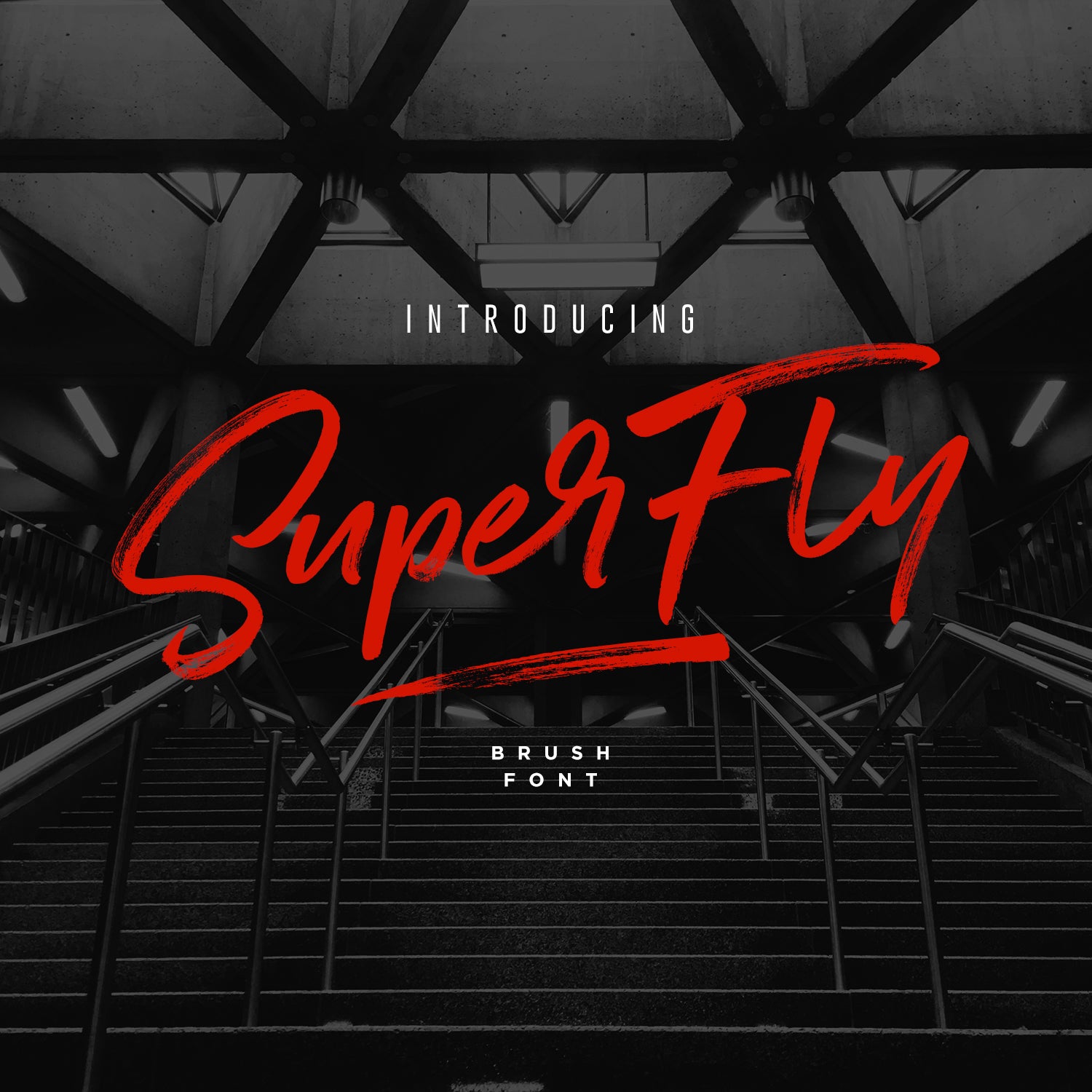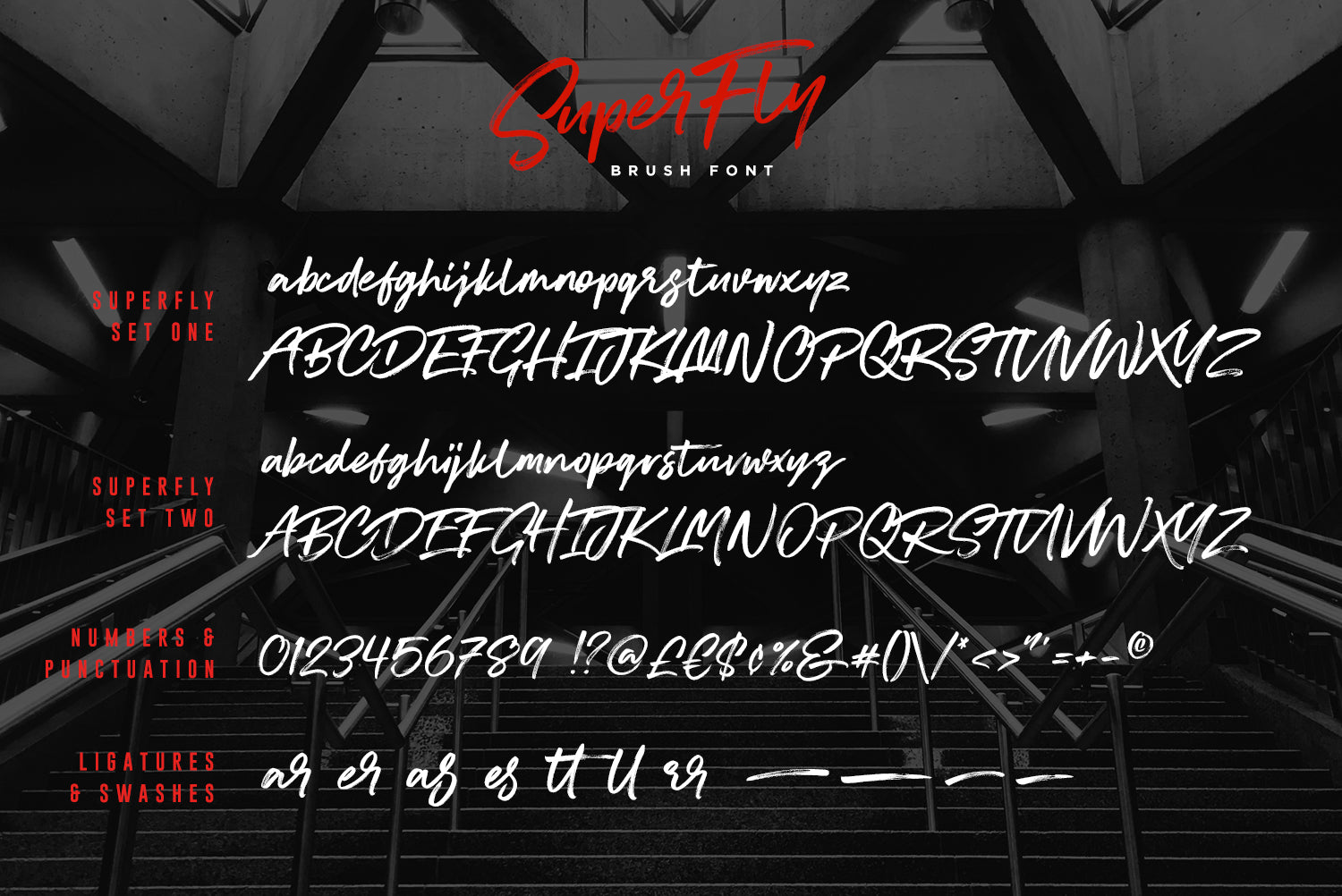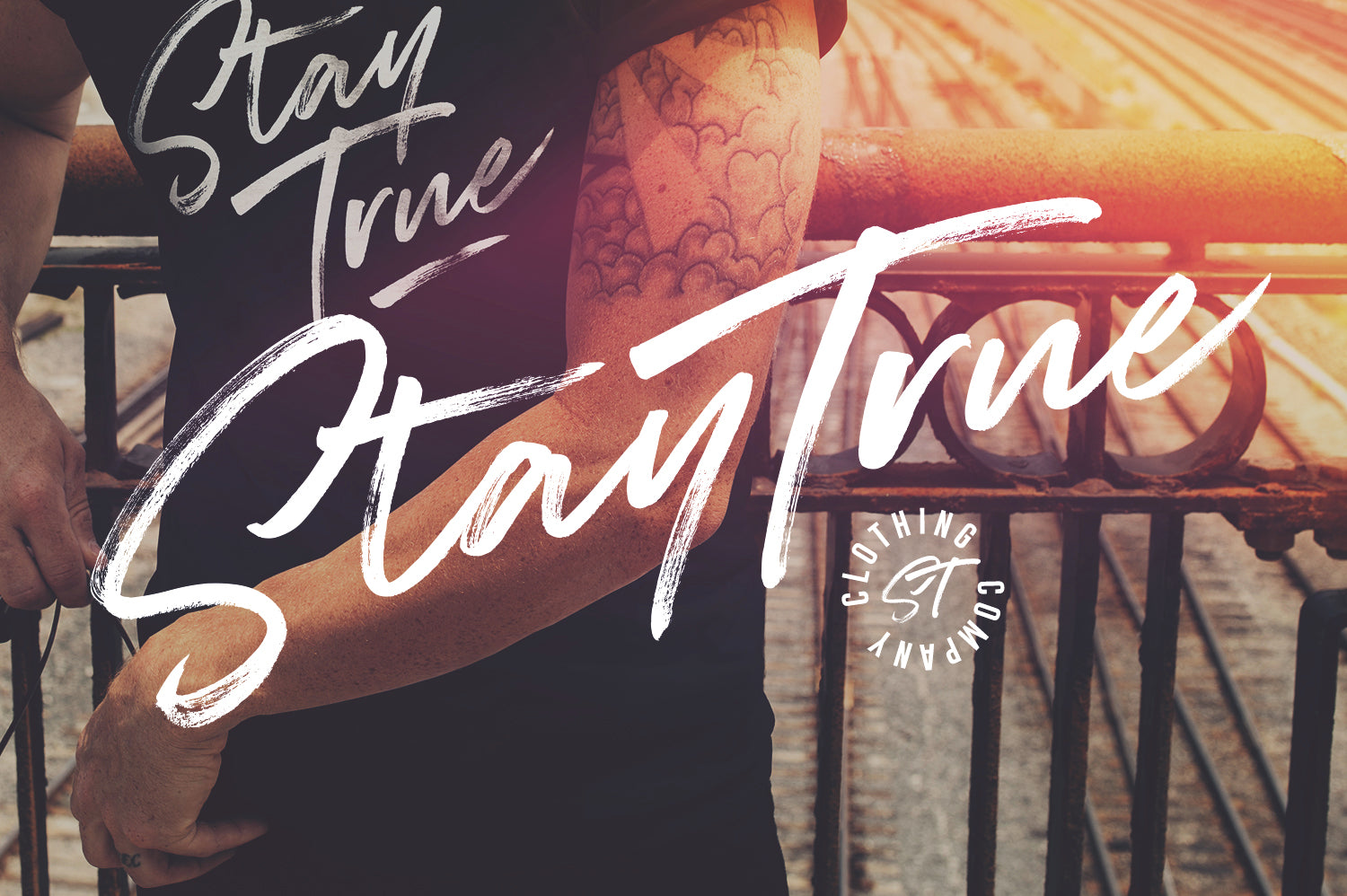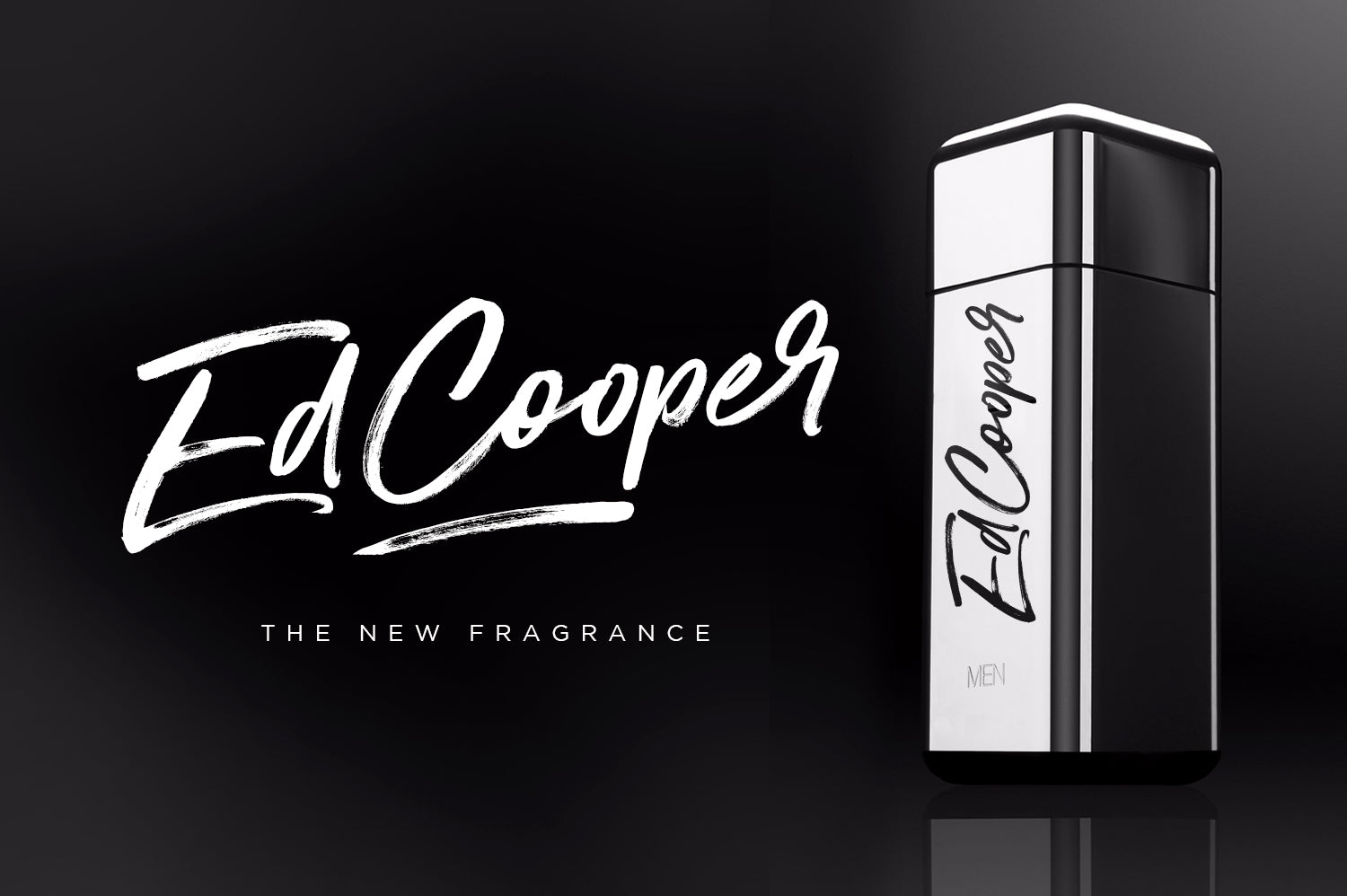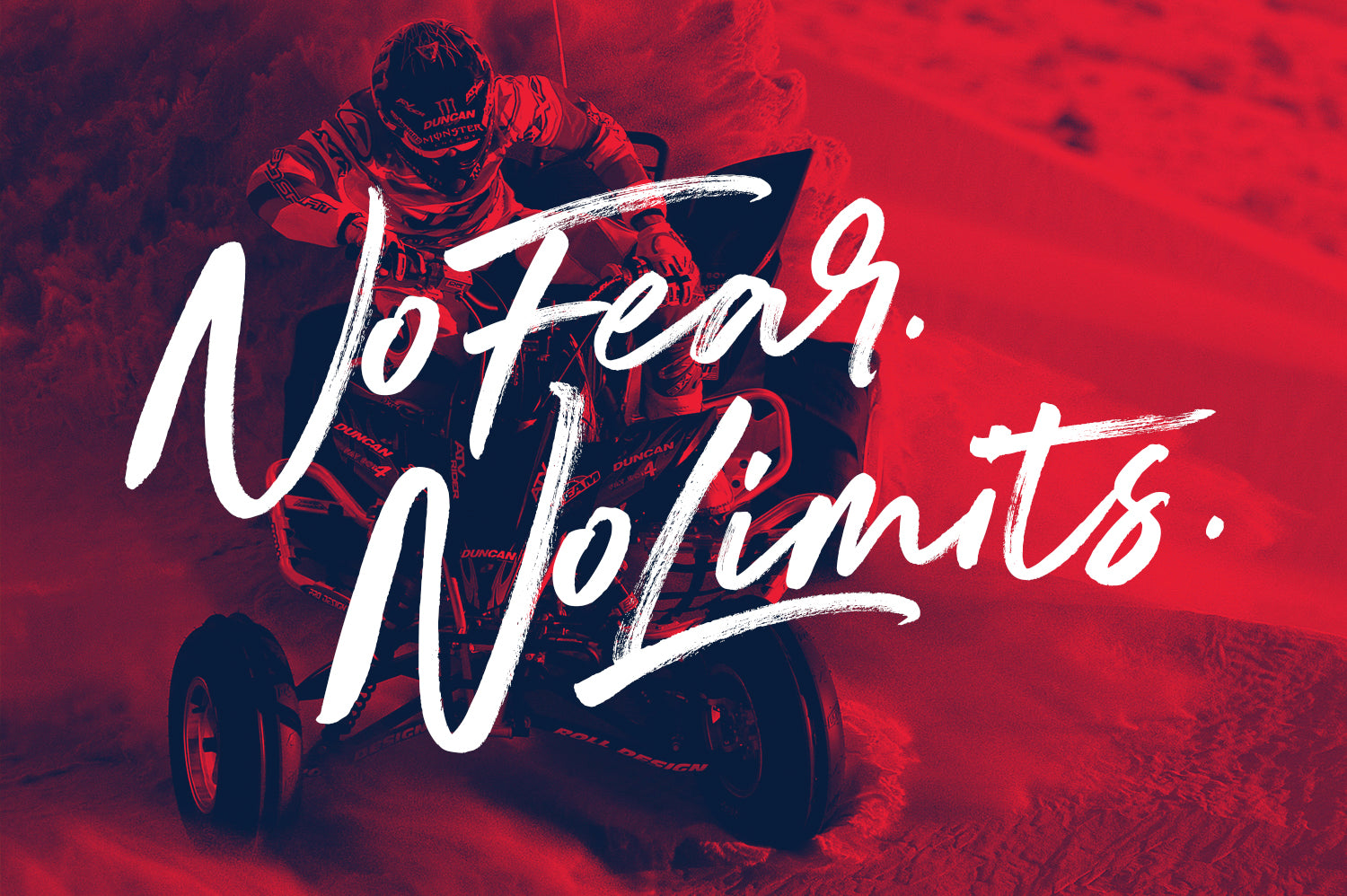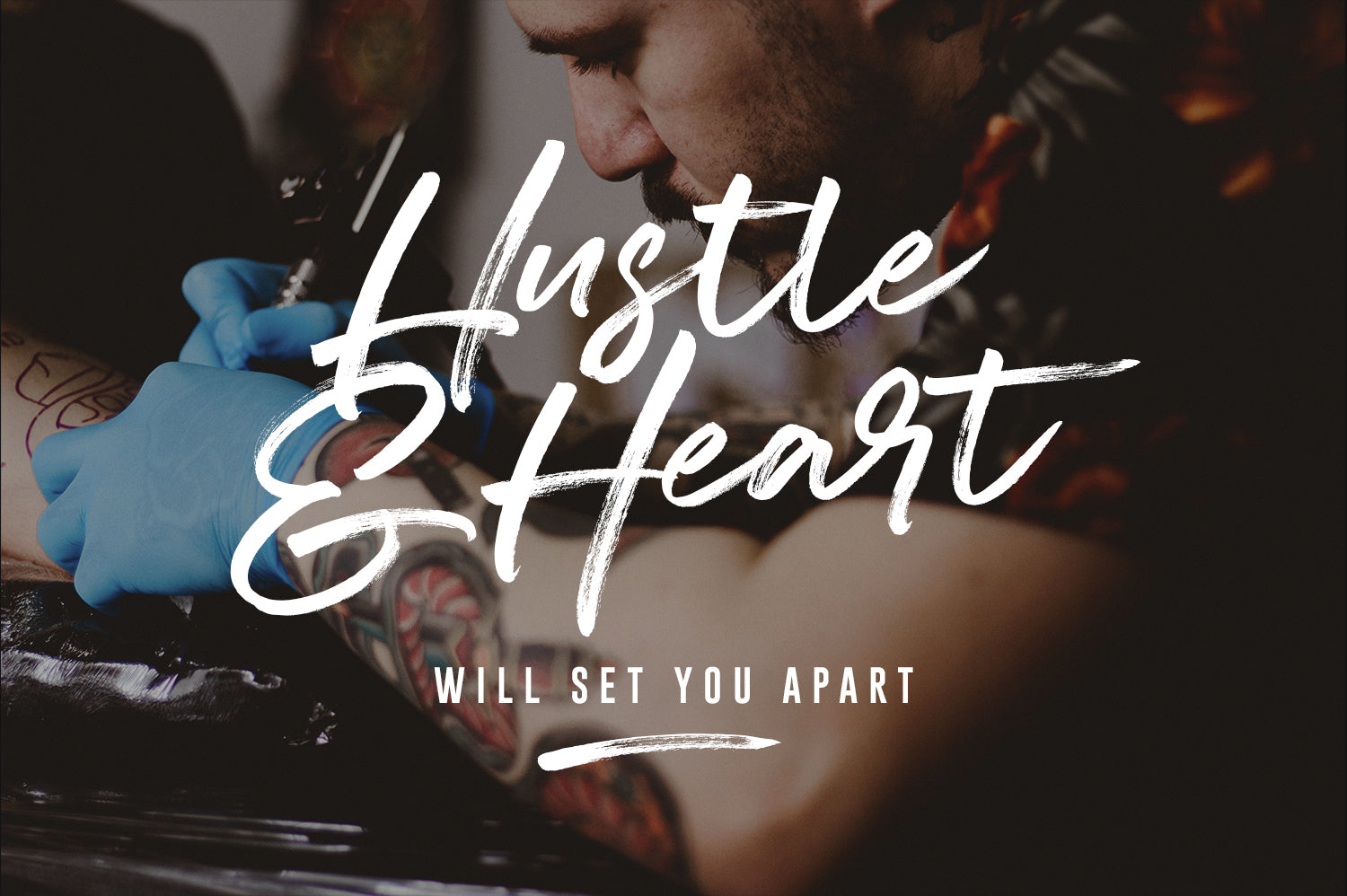
Superfly Brush Font
Superfly Brush Font is a versatile brush font featuring attractive curves and a loose flow, available in two versions: SuperFly One and SuperFly Two, each containing upper and lowercase characters, numerals, and punctuation. The font also includes swashes accessible via square brackets, select ligatures for double letters, and multilingual support for various languages.